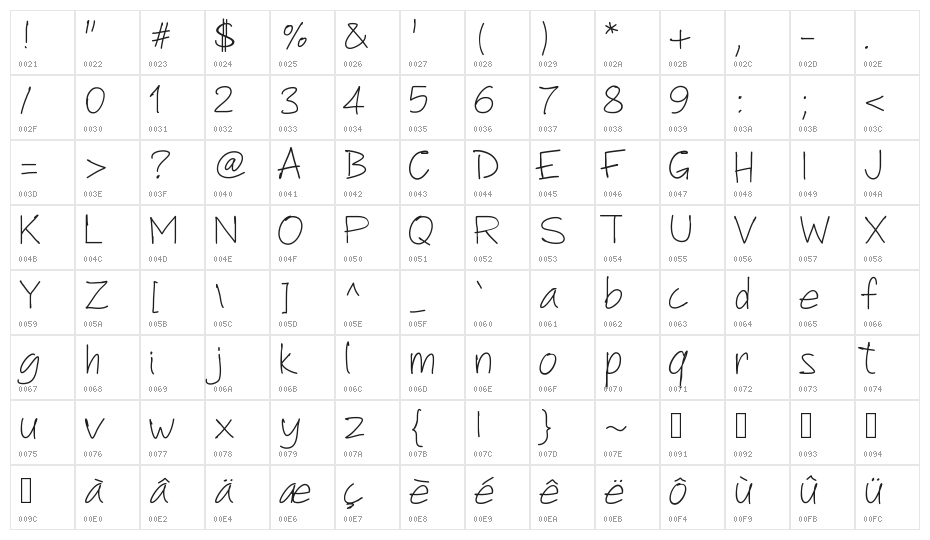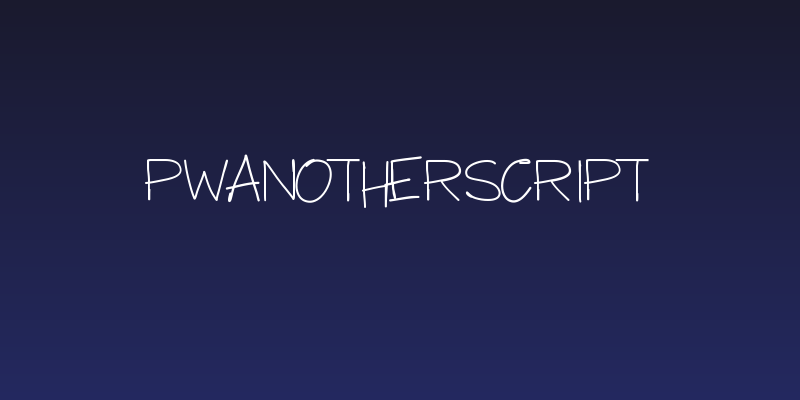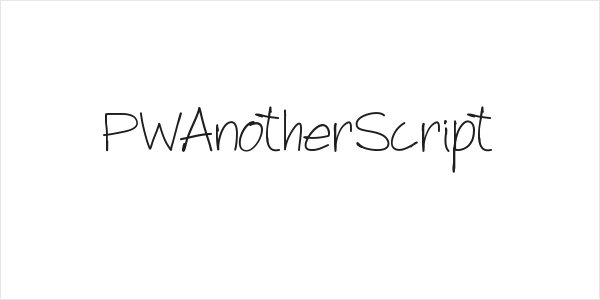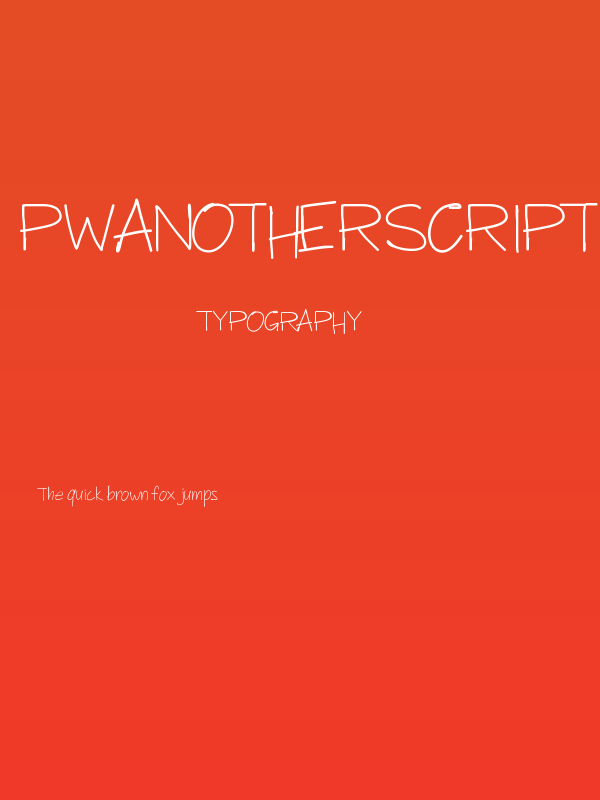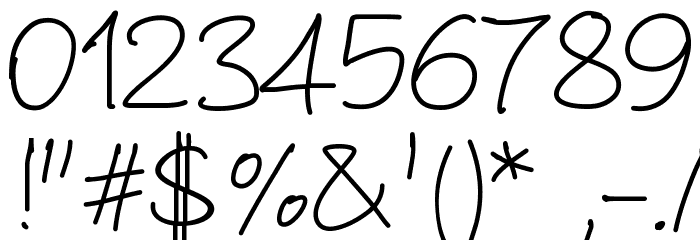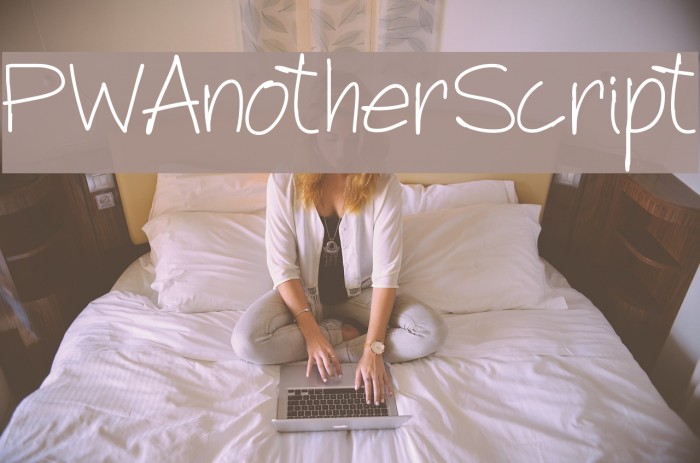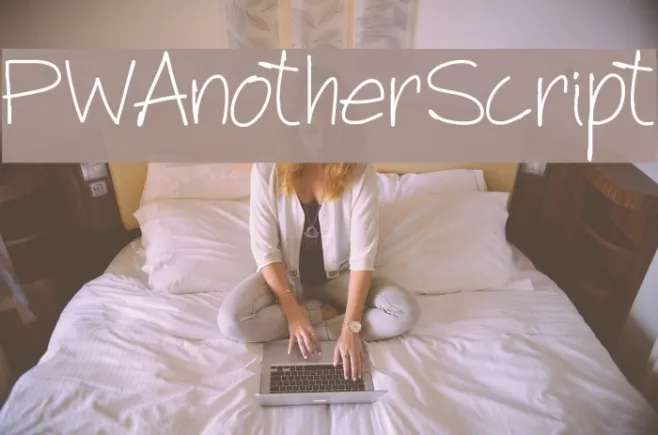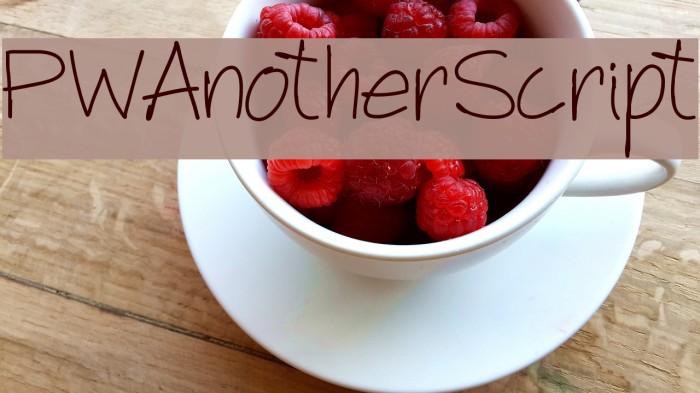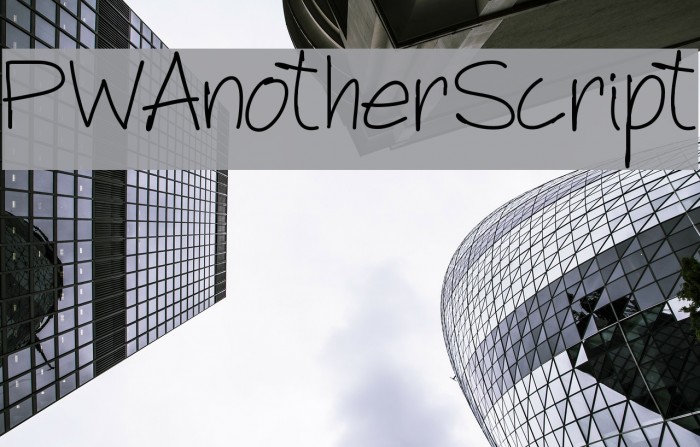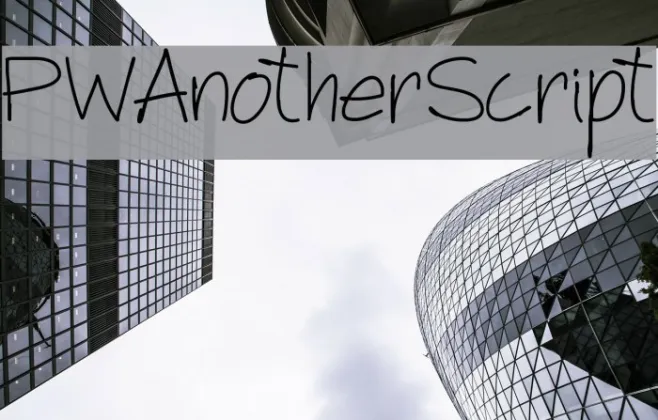
PWAnotherScript Font
PWAnotherScript Description
This font features a playful and casual handwritten style, characterized by its smooth, flowing lines and slightly irregular shapes. The uppercase letters are tall and narrow, while the lowercase letters maintain a consistent height, giving the font a cohesive look. The numerals are rounded and match the overall informal aesthetic. Special characters are included, maintaining the same whimsical style. The font's design is approachable and friendly, making it suitable for projects that require a personal touch.
| Proposed Projects | Ideal for greeting cards, invitations, personal branding, and children's book illustrations. |